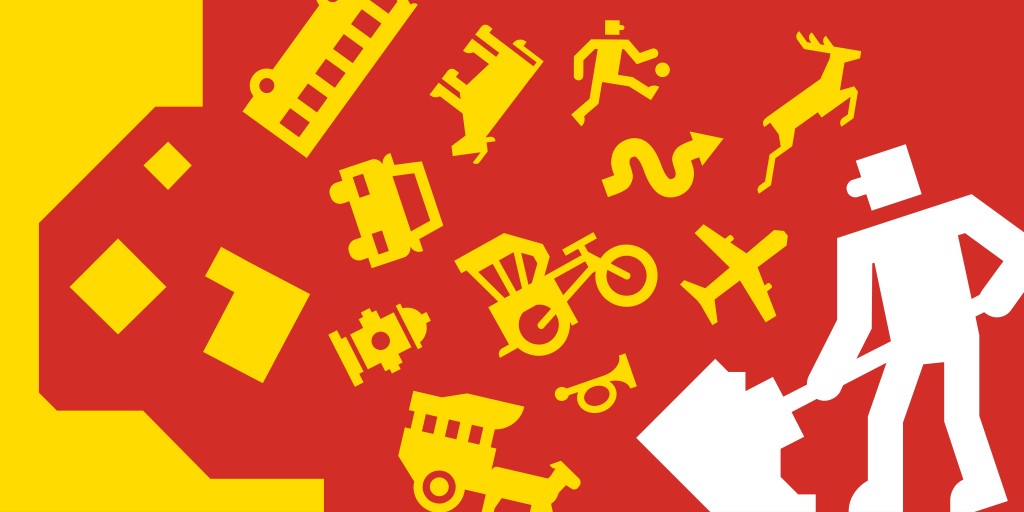
That spark led to the creation of NuWay, an original typeface designed for a modern Malaysian wayfinding system. NuWay combines Roman uppercase letters inspired by Malaysia’s LLM lettering with a pictogram system mapped into the lowercase letters. Together, these elements form a typeface capable of handling both text and symbolic communication for highway and public signage.
Understanding Malaysia’s Wayfinding Landscape
Malaysia’s current signage uses LLM lettering, which consists of LLM Normal and LLM Narrow. Through my analysis and observation, I found that LLM Narrow appears less frequently, likely due to legibility issues commonly associated with condensed fonts — specifically inconsistent stroke thickness and tight counter spaces — issues not present in LLM Normal.
This presented an opportunity to redesign LLM Narrow to better align with the structural quality of LLM Normal. In this project, that redesign would function as the uppercase letter set.
As I delved deeper into my research, the lack of Malaysia’s own original pictogram signage became increasingly apparent, especially compared to neighboring Singapore, which provides its pictograms and diagrams publicly on its website. The same could be said for countries such as the United States and the United Kingdom, both of which have an extensive history of wayfinding development.
This realization led me to study established wayfinding frameworks more closely. A key reference was Signage and Wayfinding Design by Chris Calori and David Vanden-Eynden, which articulates principles of legibility, clarity, and simplicity for functional pictogram systems. Further inspiration was drawn from Olympic pictograms and international road signage used in various countries.
Limited by time constraints and the scope of lettering required, I focused specifically on signage commonly found on Malaysian roads, as shown on the KPP Test website. This approach grounded the project in a real-world context and allowed me to redesign unique local signs that are rarely seen elsewhere.
Redesigning the Letterforms
In developing the uppercase letters, I used LLM Normal as a structural reference, maintaining a consistent stroke thickness of exactly 127.3 pt. The letter “B” became my first construction model, as it contains both straight and curved elements that could be reused to build other characters.
At the same time, there were challenges in maintaining consistency with slanted strokes. To create these forms, I shifted edges manually using the Shear Tool. However, one drawback of this approach is that stroke thickness appears to decrease as the angle becomes steeper, despite the width remaining consistent. This resulted in minor inconsistencies in perceived weight that required careful refinement.
Since NuWay was intended for public use, it needed to withstand real road conditions such as weather, speed, and viewing distance. To simulate these effects, I stress-tested the letterforms using various blur filters in Photoshop.
These tests highlighted a common problem: counter space compression. Letters such as “A”, “M”, “V”, “W”, “X”, “Y”, and the number “4” were most affected. While techniques such as ink traps could address this issue—as seen in some work by previous students—I chose instead to manually widen the internal counter spaces of the affected characters. Although this slightly reduced stroke consistency, the improvement in legibility outweighed strict measurement uniformity.
This process reinforced an important principle: functional typography should prioritize clarity over textbook rules or numerical precision.
Designing the Pictogram System
The lowercase letters of NuWay function as a pictogram system — the highlight and visual core of the typeface. Each pictogram was constructed within a 21×21 grid using reusable geometric components rather than freehand drawing. This modular approach ensured consistency and significantly reduced construction time.
Initially, my symbols resembled existing universal signage too closely. Later redesigns made them overly rigid and difficult to read due to strict reliance on the square grid. Through refinements and research into existing pictogram fonts, I expanded the grid system, allowing for more proportional and readable designs in the final iteration.
Several intentional design traits are most evident in the human pictograms, including proportional body height, a distinct nose shape indicating direction, and rounded hands that contrast with angular feet. Small details like these add character and personality to the pictograms while maintaining readability — a balance that distinguishes NuWay from existing signage systems.
With both uppercase letters and lowercase pictograms finalized, the next step was evaluating how they function as a unified type system. The design was prepared for import into FontLab to resolve proportions, alignment, and visual hierarchy across all characters.
NuWay is more than a modern redesign of an existing signage system. It reflects how even small design interventions can contribute to national identity and shape how citizens perceive their environment.The project also highlights cultural confidence, demonstrating that Southeast Asia can develop visual systems that remain relevant and purposeful within a global context.